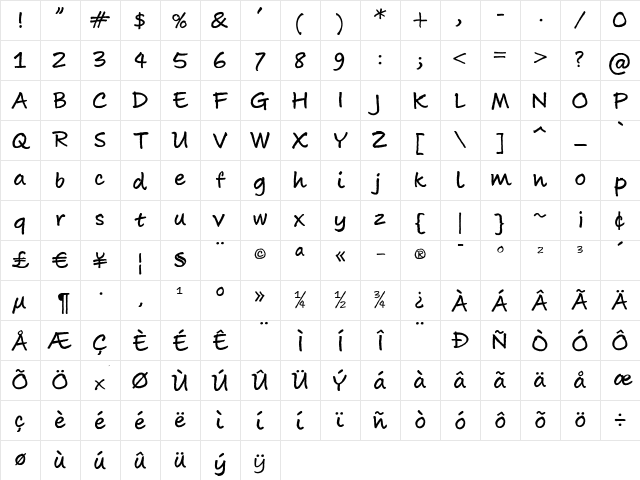
Complete Aboutface Regular glyph index. Displaying only characters natively supported by Aboutface Regular font.
Aboutface is a composed and adaptable typeface that performs quietly and consistently across a wide range of design contexts.